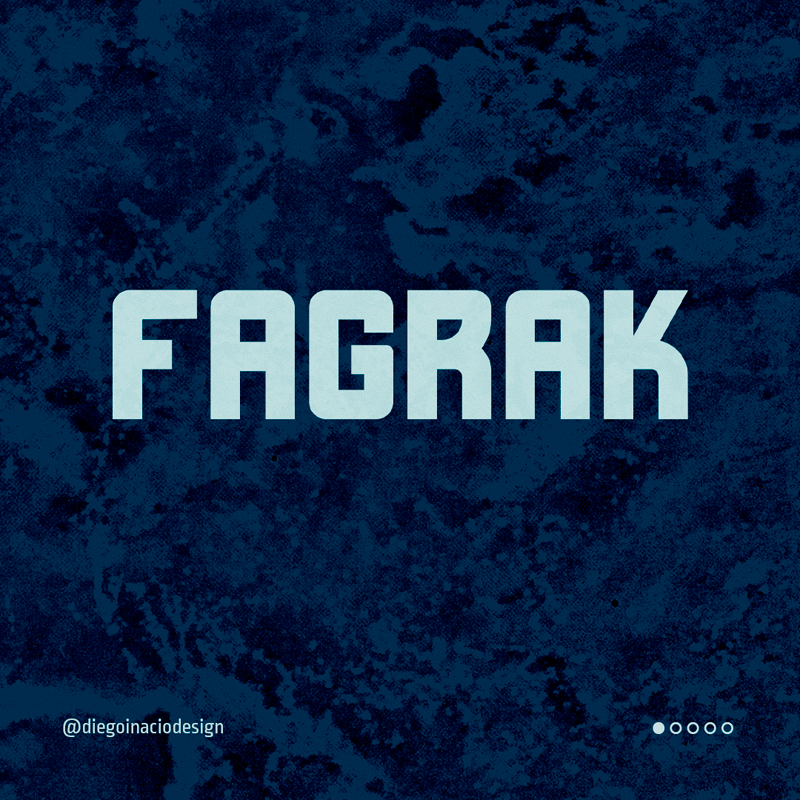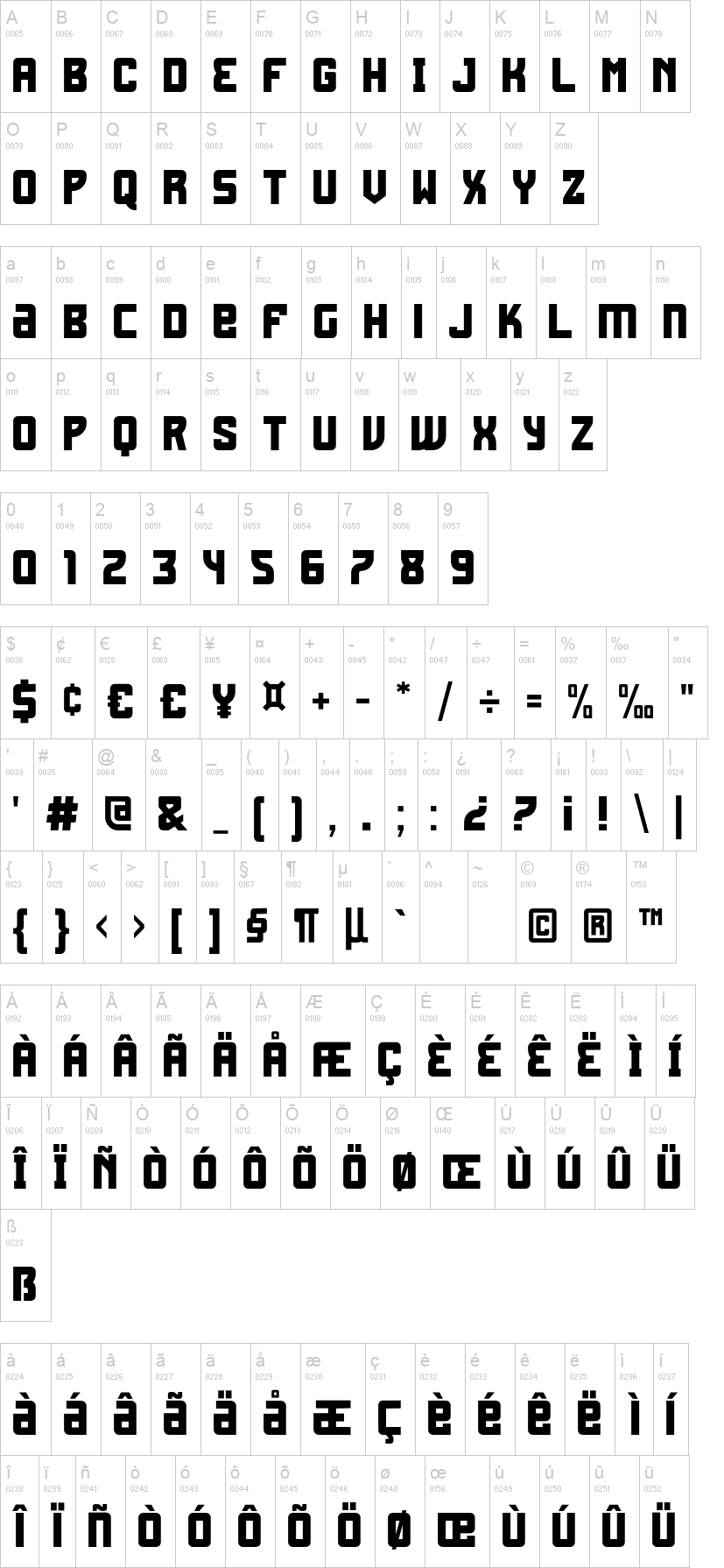
Fagrak Inline.otfNote of the authorFagrak is an impressive and memorable font, available in Bold and Inline versions. This typography is perfect for logos, posters and social media posts. You can combine the characters to create some unique typefaces.